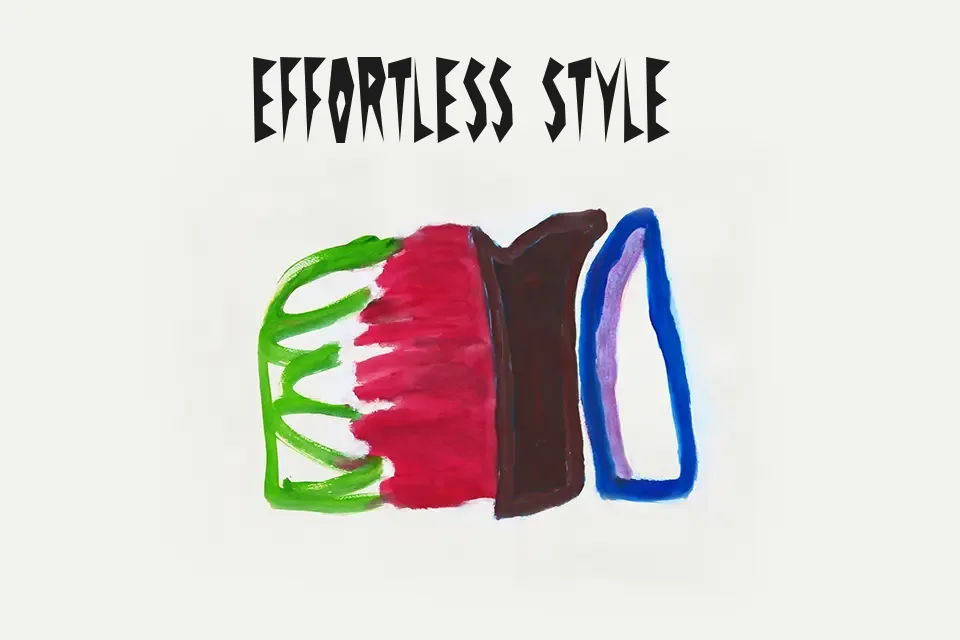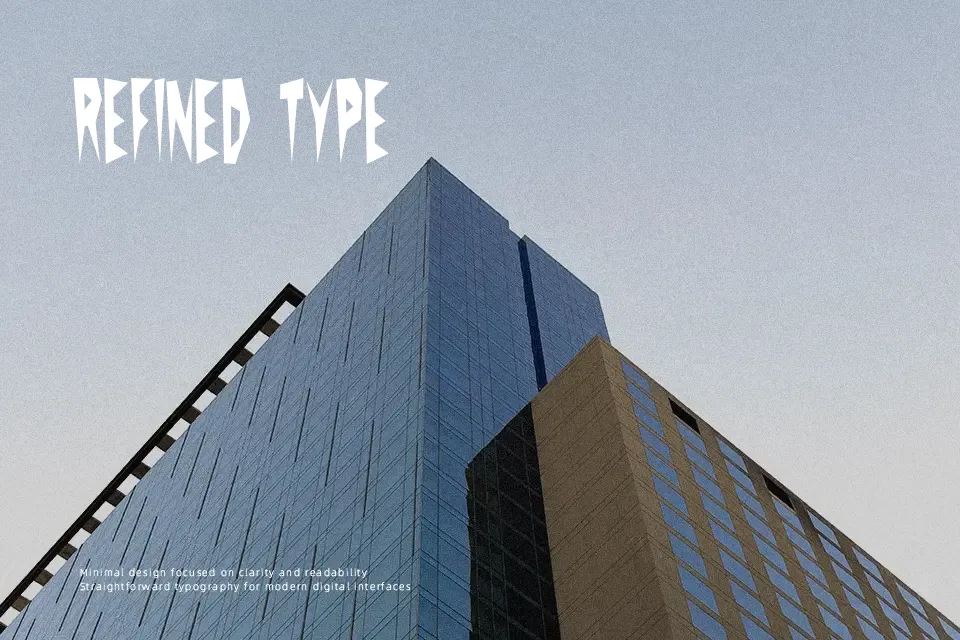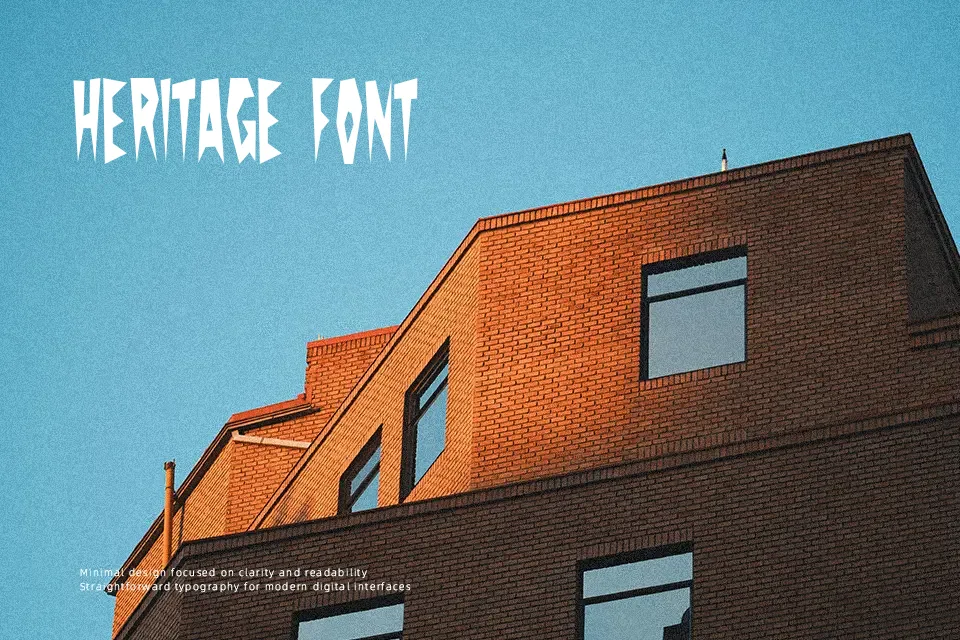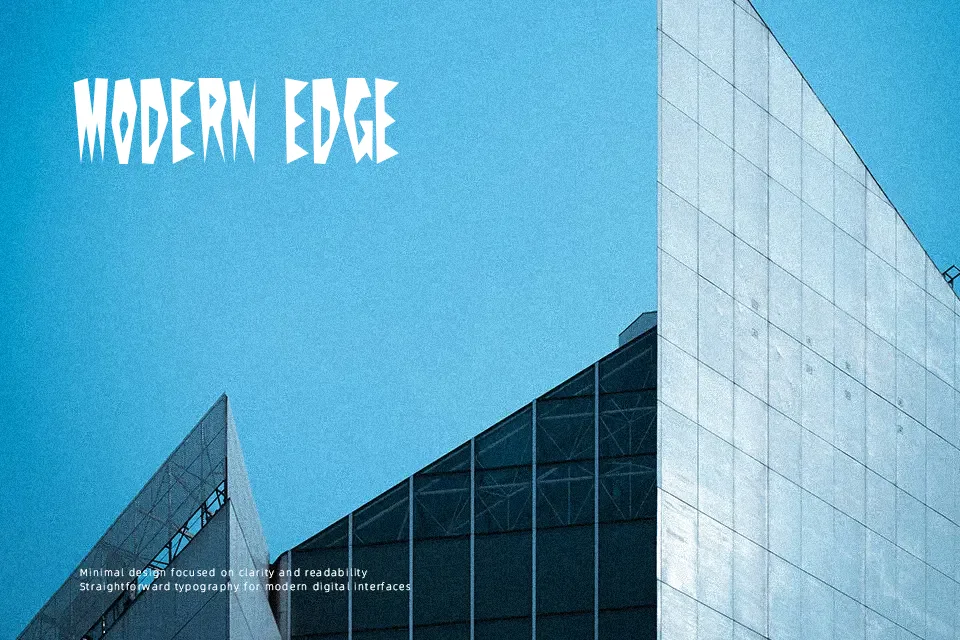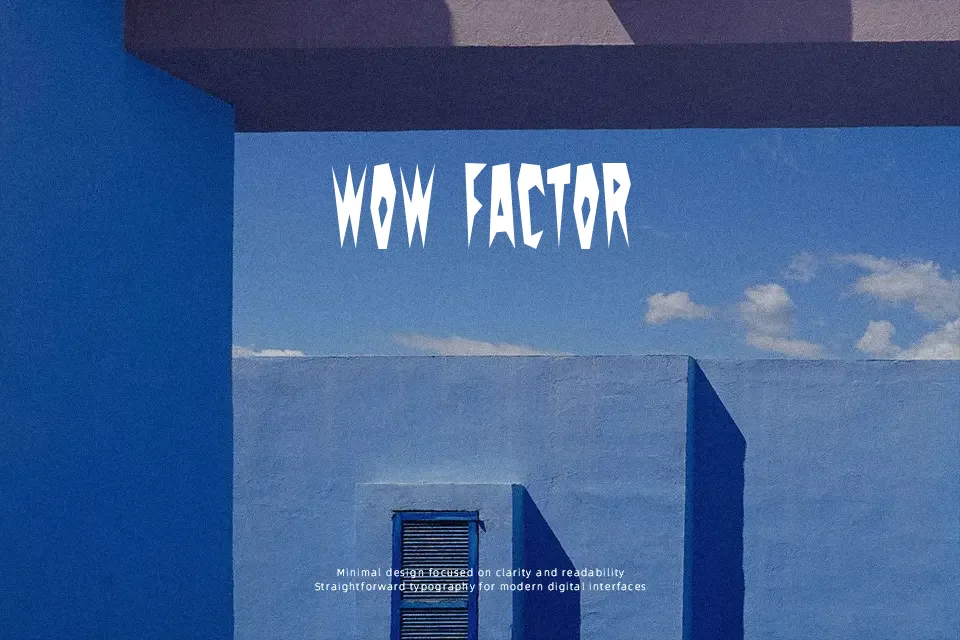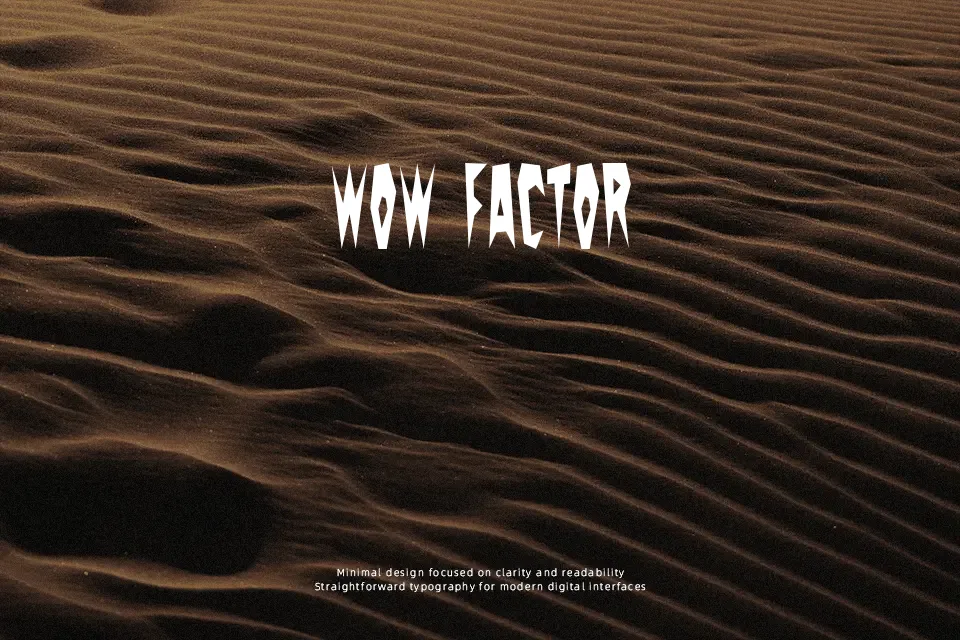
Prickly Pear Font
Designed by Marty Bee
Prickly Pear Font features an angular, aggressive cartoon style characterized by sharp terminals and varying stroke widths. The letterforms display erratic proportions and a rough, hand-drawn appearance that gives text a highly energetic rhythm. Its spiky structure and tight spacing create a dense, chaotic visual impact suitable for striking comic book titles, gaming logos, and dynamic poster headlines. The bold strokes improve visibility in short, large-scale display applications where maximum attention is required. However, these highly decorative details become less effective at smaller sizes, reducing overall legibility. This typeface is not recommended for long paragraph text or dense editorial layouts, as its sharp, unconventional shapes significantly reduce continuous reading comfort.
gaming channel logos, comic book titles, indie band posters, dynamic event flyers
long paragraph text, corporate reports, small interface labels, dense editorial layouts
Perfect for gaming, headline, and logo, with a dynamic and cartoon style.